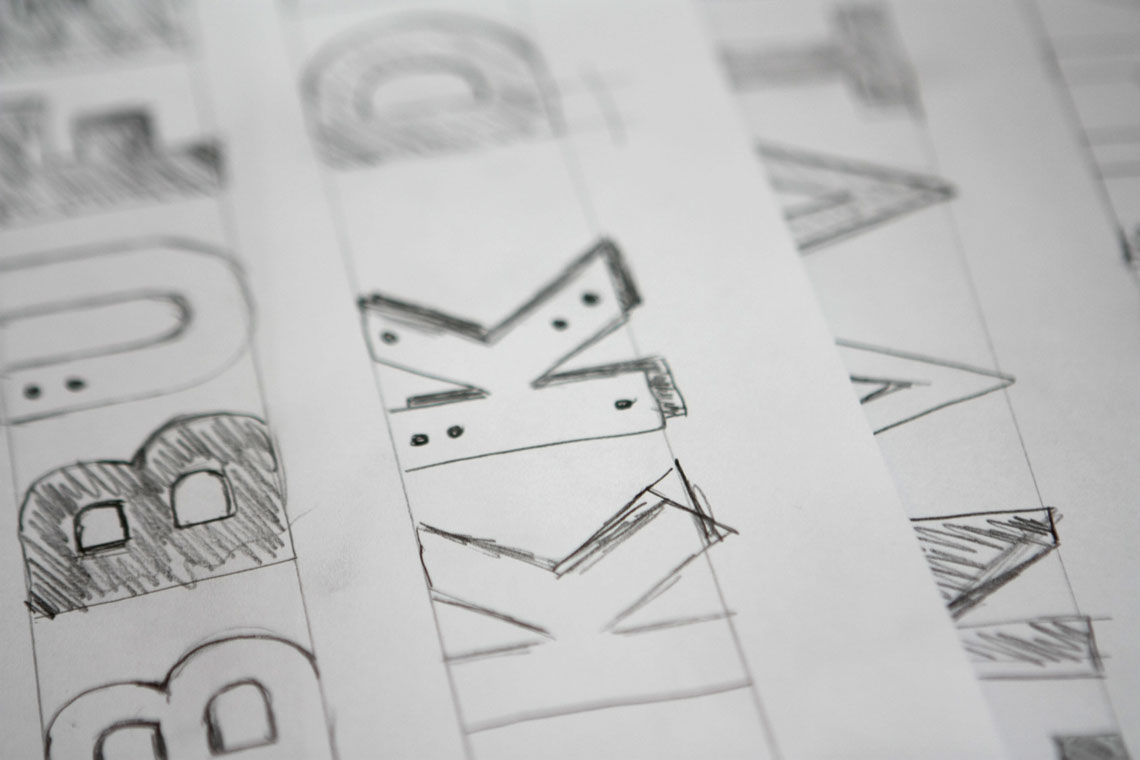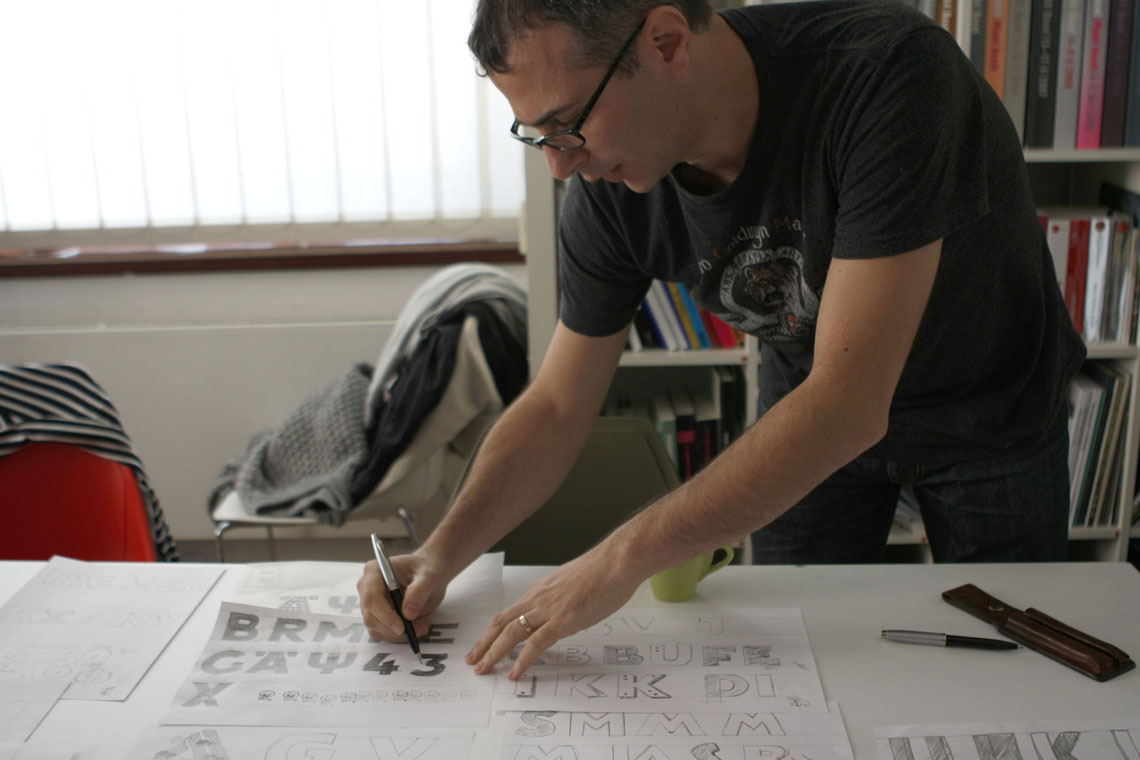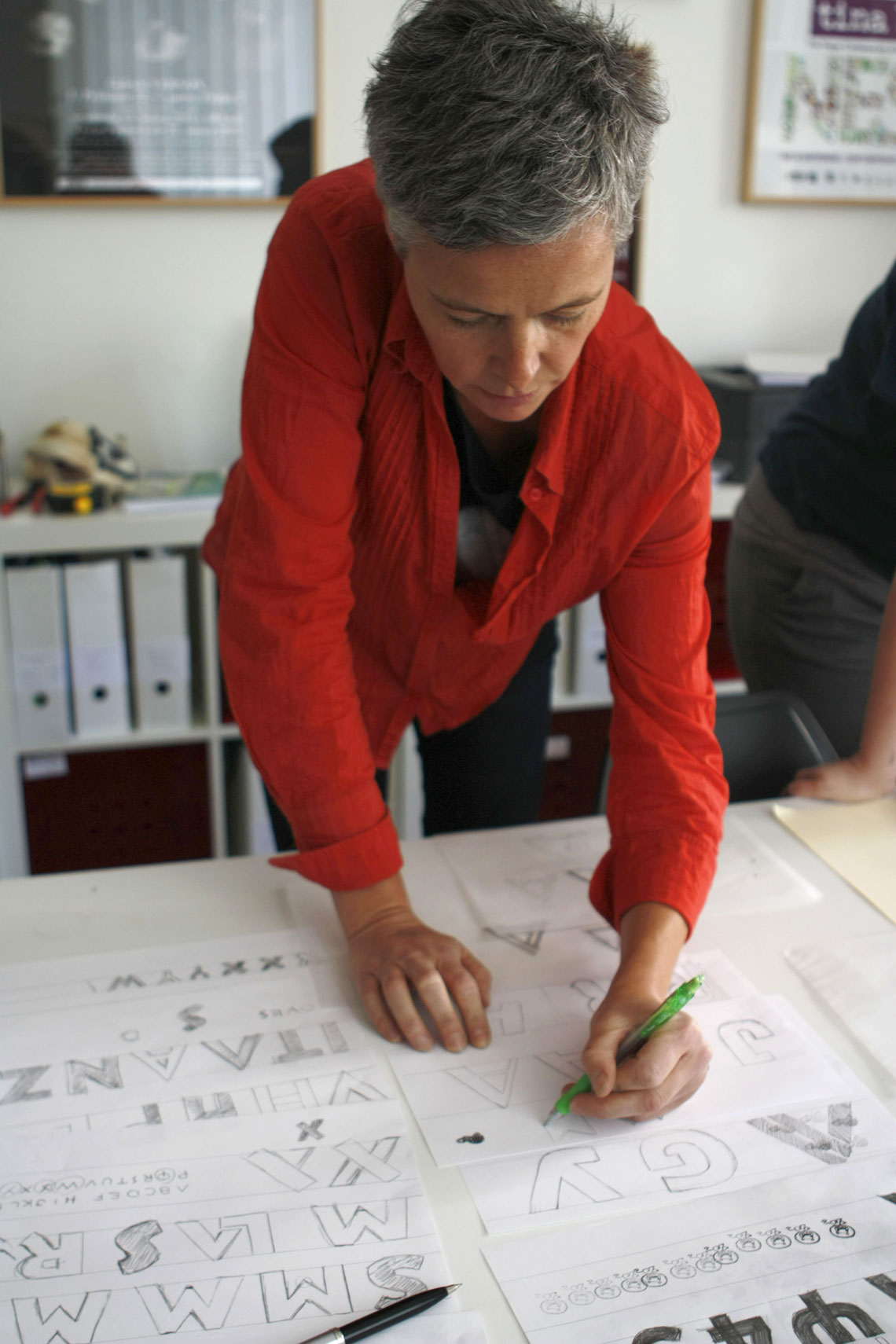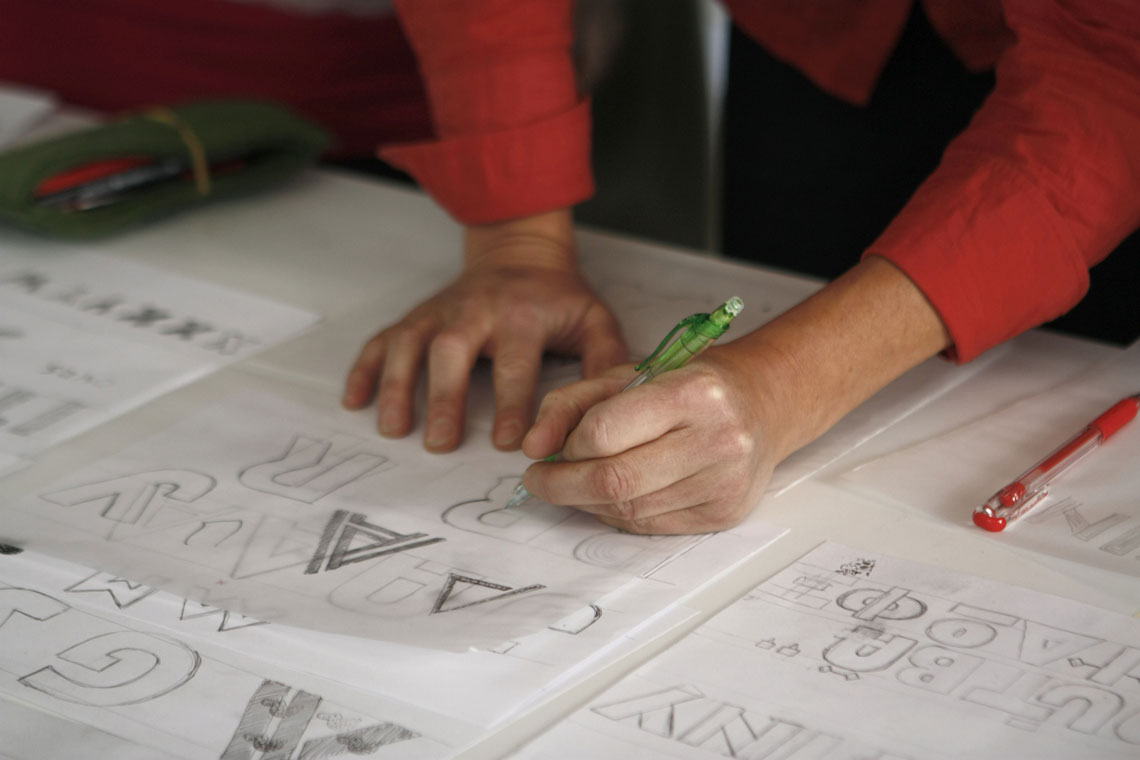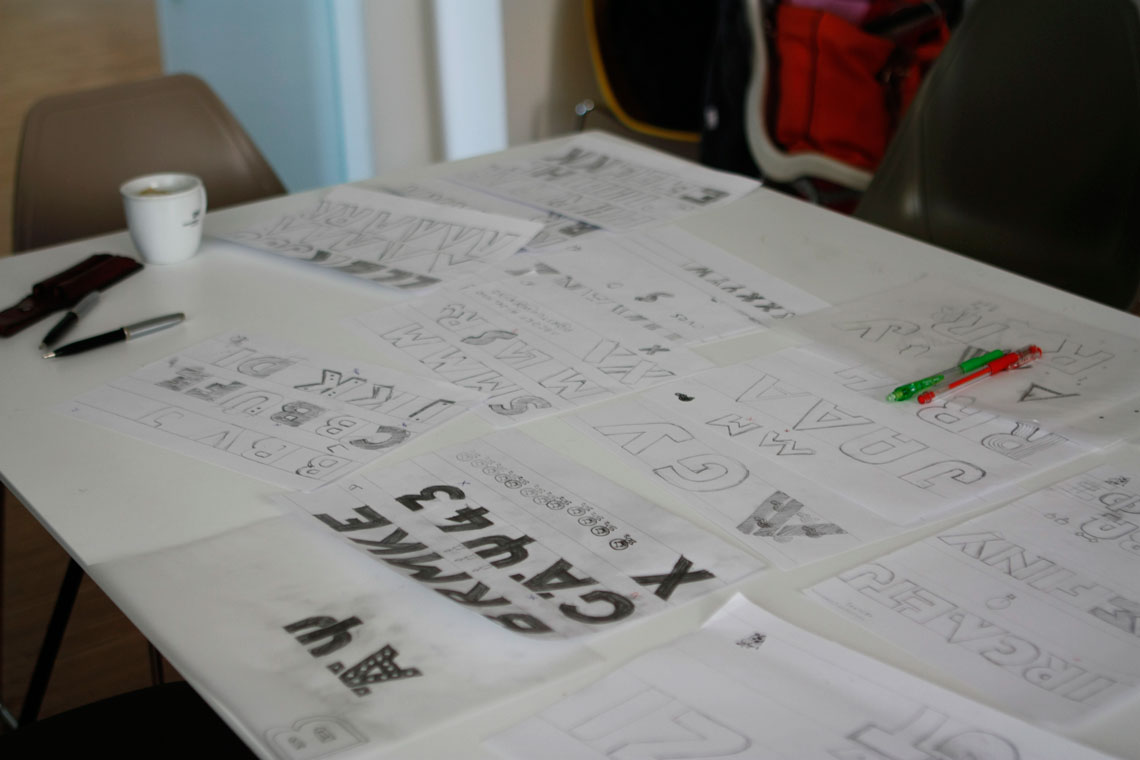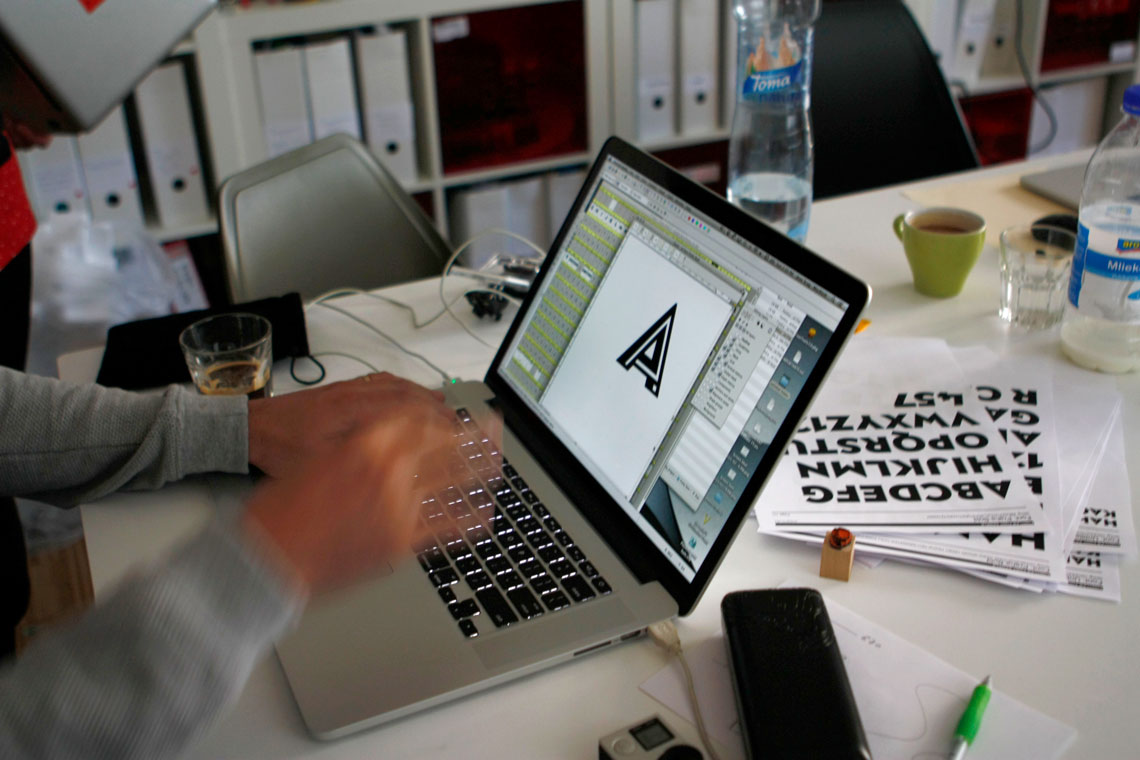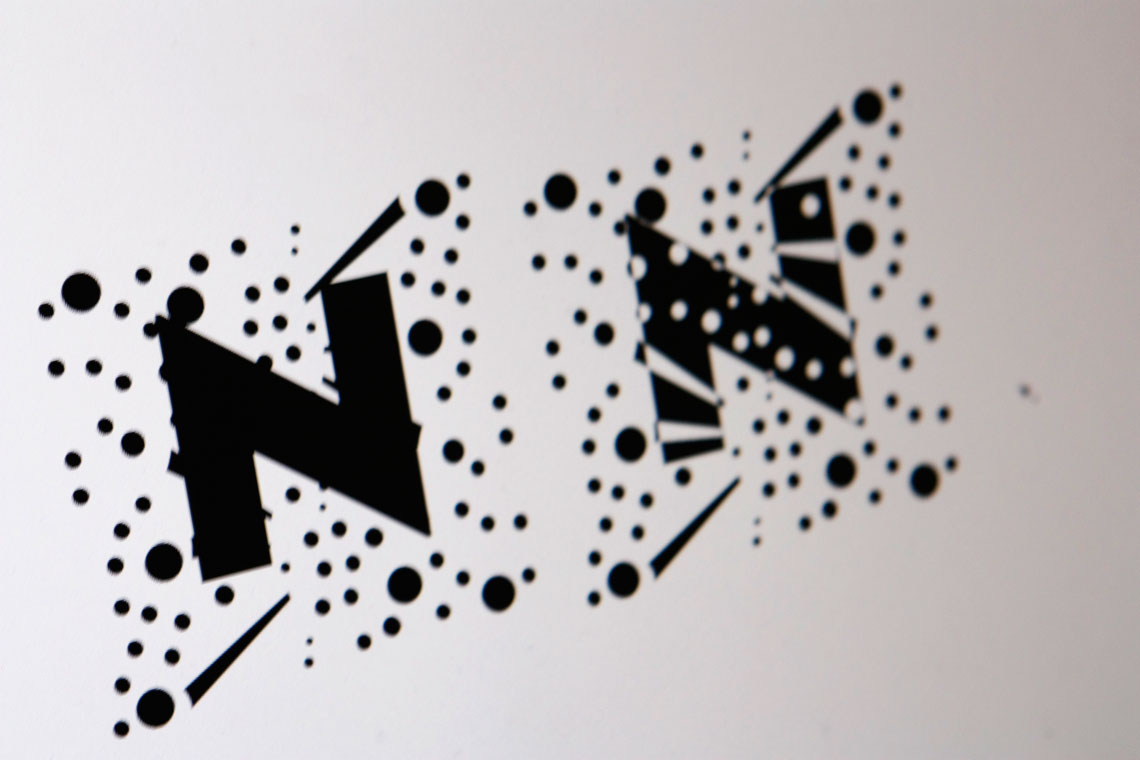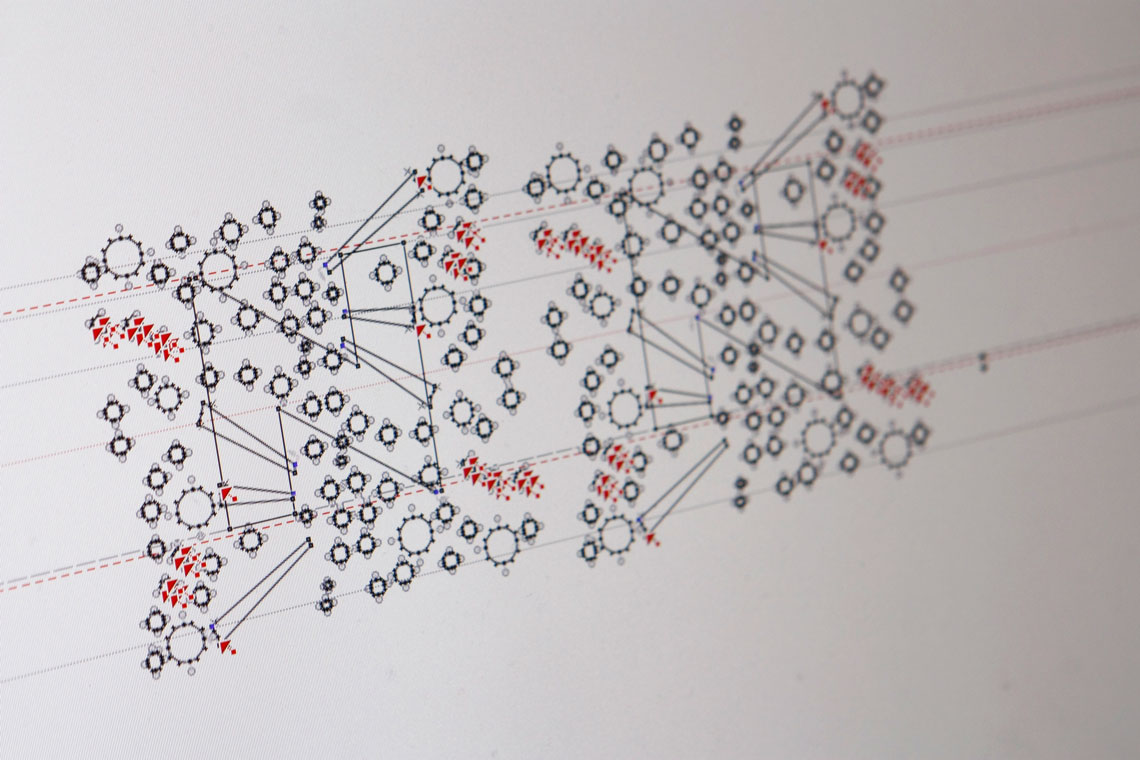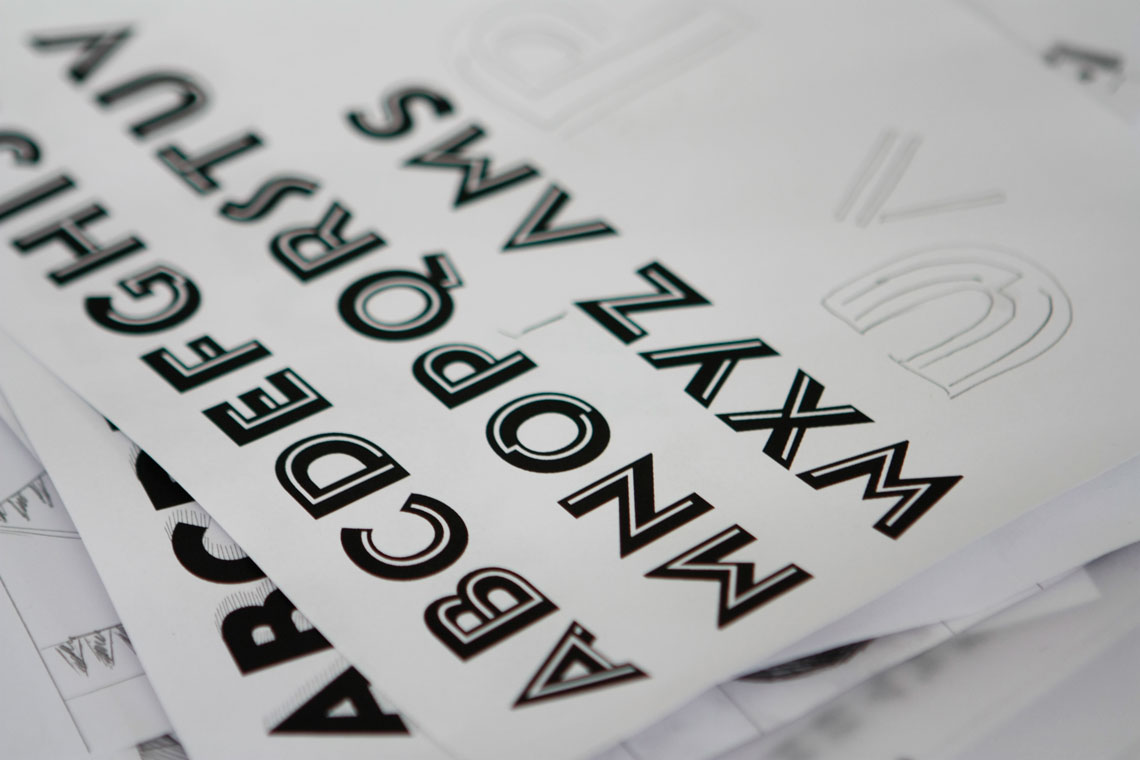
Ahoj
The Ahoj typeface is the result of a short four-day workshop in Prague of the core TypeTogether design team.
Right from the start, TypeTogether never had an actual physical office space. The company is incorporated in the Czech Republic and its employees and collaborators are spread around the globe. Usually we meet at different typography conferences that are held throughout the year. Since a proper meeting once a year is quite little, we decided to organise a working get-together of the core design team; learning more about the different parts of the font making and publishing process, having fun and doing type design from the very conceptual stage to the final upload to our web store. The Ahoj typeface is the result of this four-day workshop at ‘Galerie Vernon’ in Prague.
Ahoj is a bold display sans serif inspired by images of old signs and lettering found in our different home cities. We started by making a selection of various features we liked from the images and then started sketching some basic shapes to explore weight, proportions and general DNA of the new font.
By the end of day one we arrived at some nice proportions for a titling font comprised of only upper case characters. We also started to play with the idea of adding some decorative patterns that could be used as coloured layers on top of the main font.
During the third day the team was working at full speed populating the character set with some accents and symbols, and fine tuning the various textures that can be added to the font. These include shadows, interlocking inlines, and ‘bolt holes’ inspired by one of the image from a London sign.
The last day of work was partially devoted to various post-production processes such as kerning, programming OpenType features and screen optimization. Finally we all had some fun using the font and creating various samples of what can be done with it.